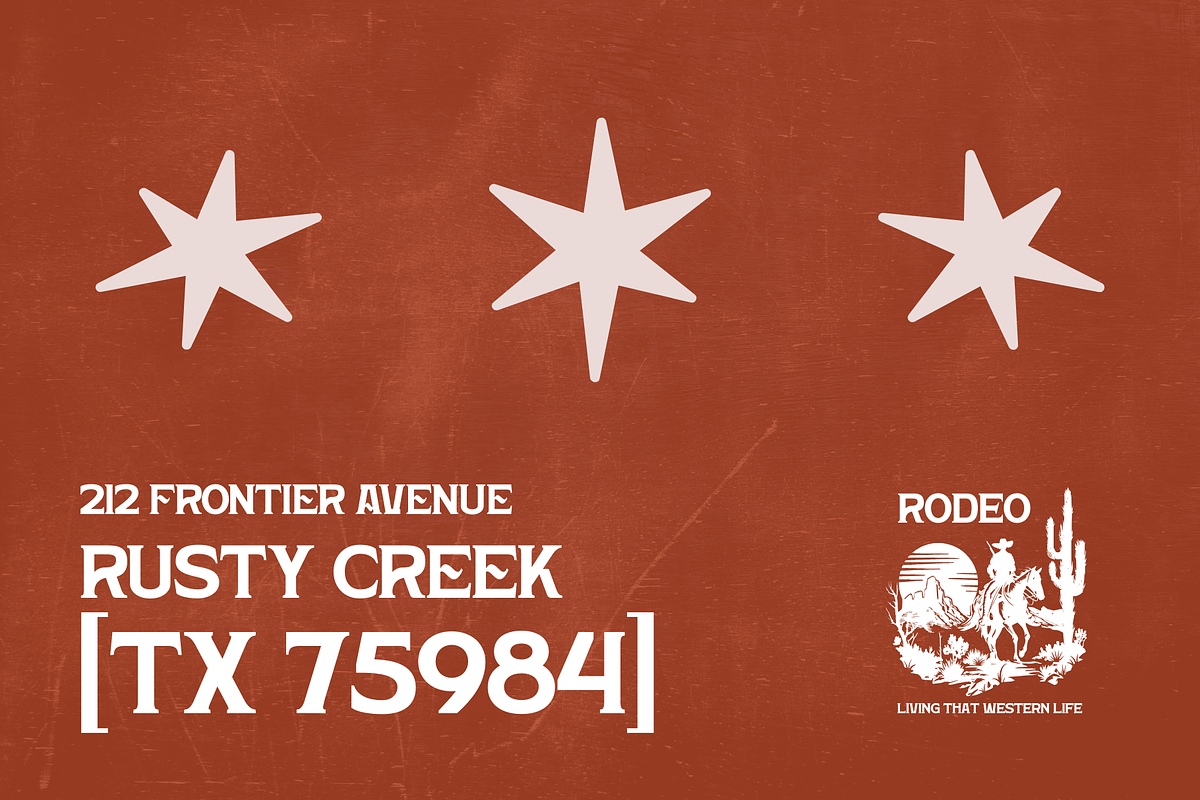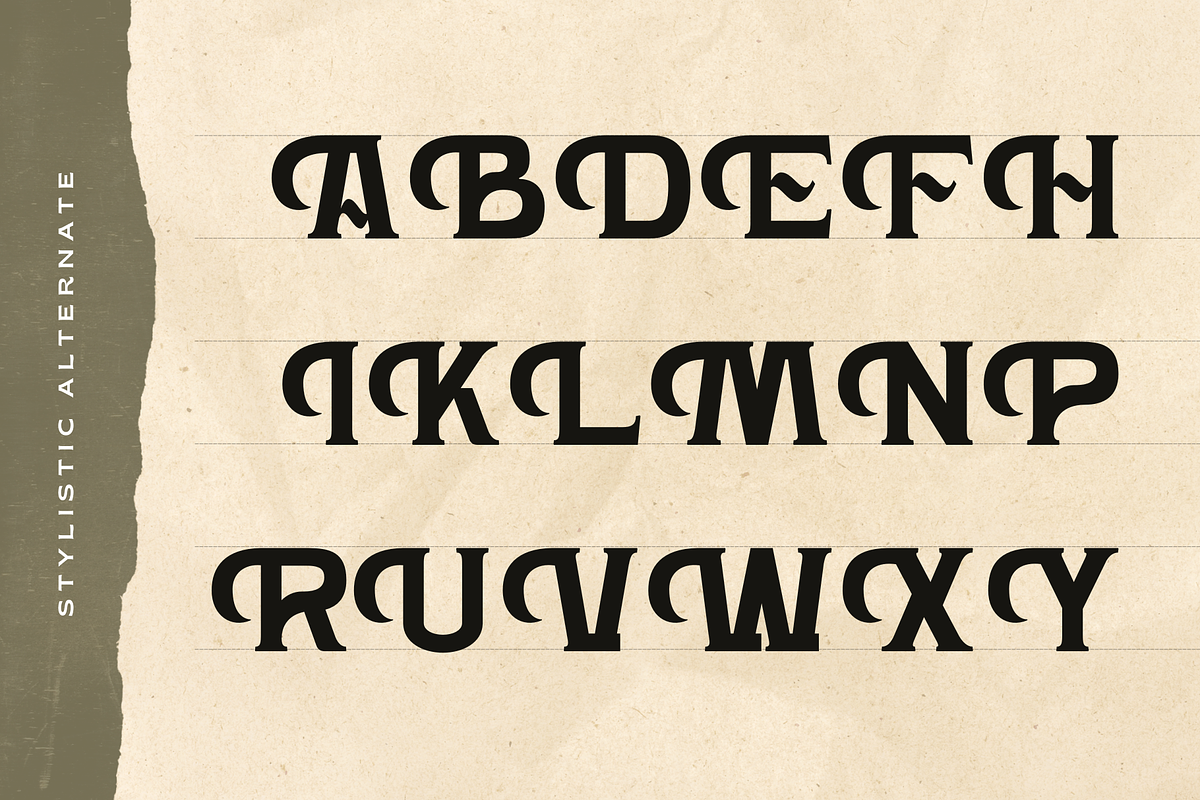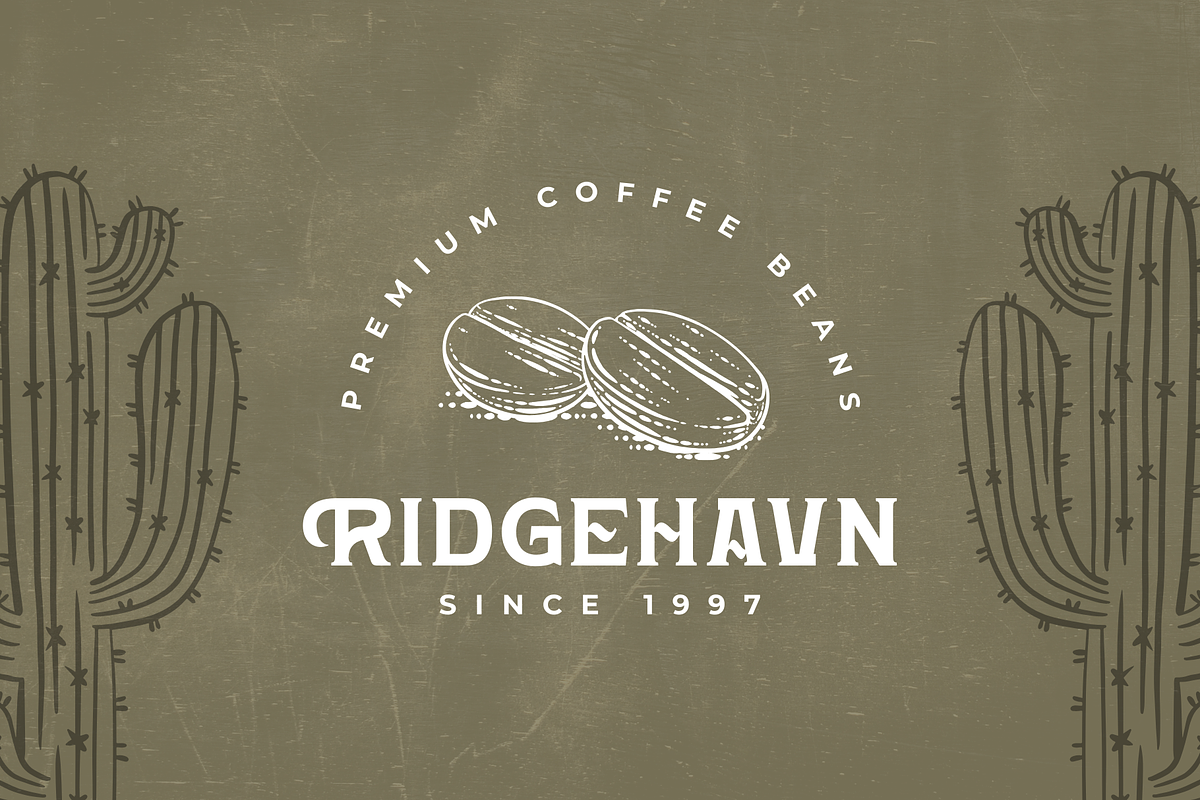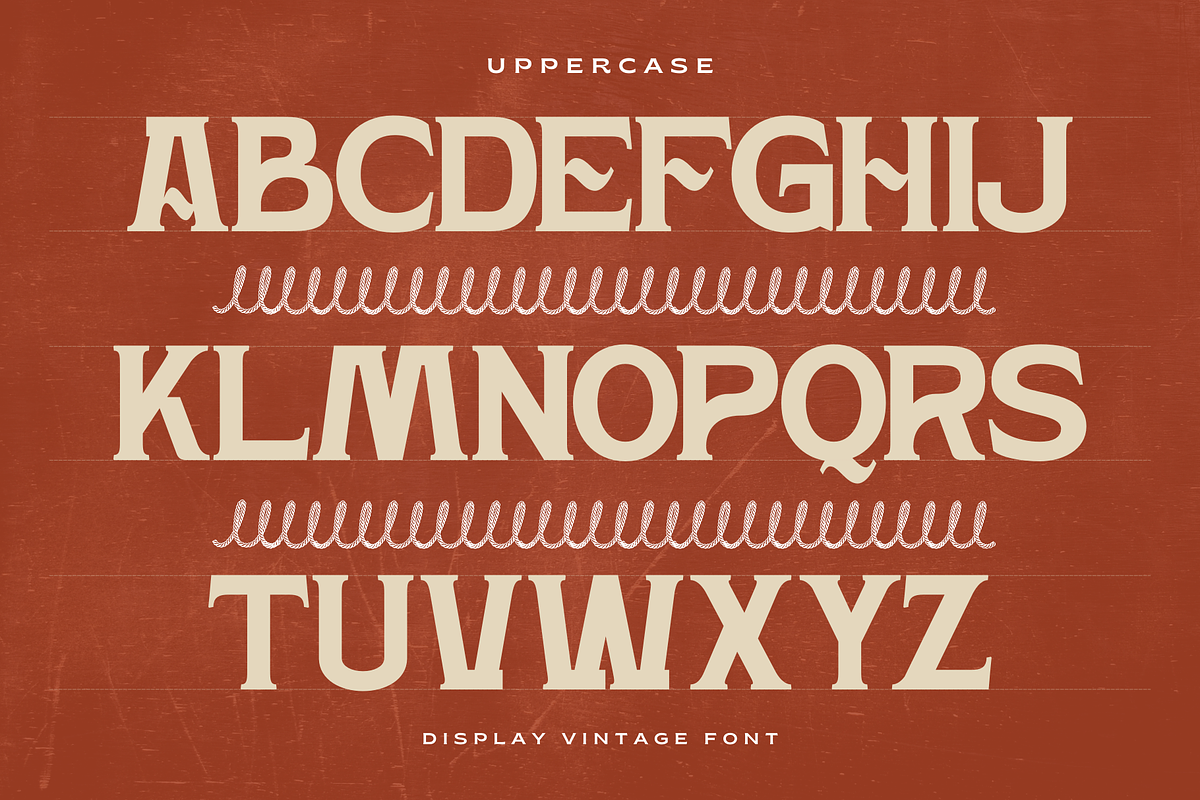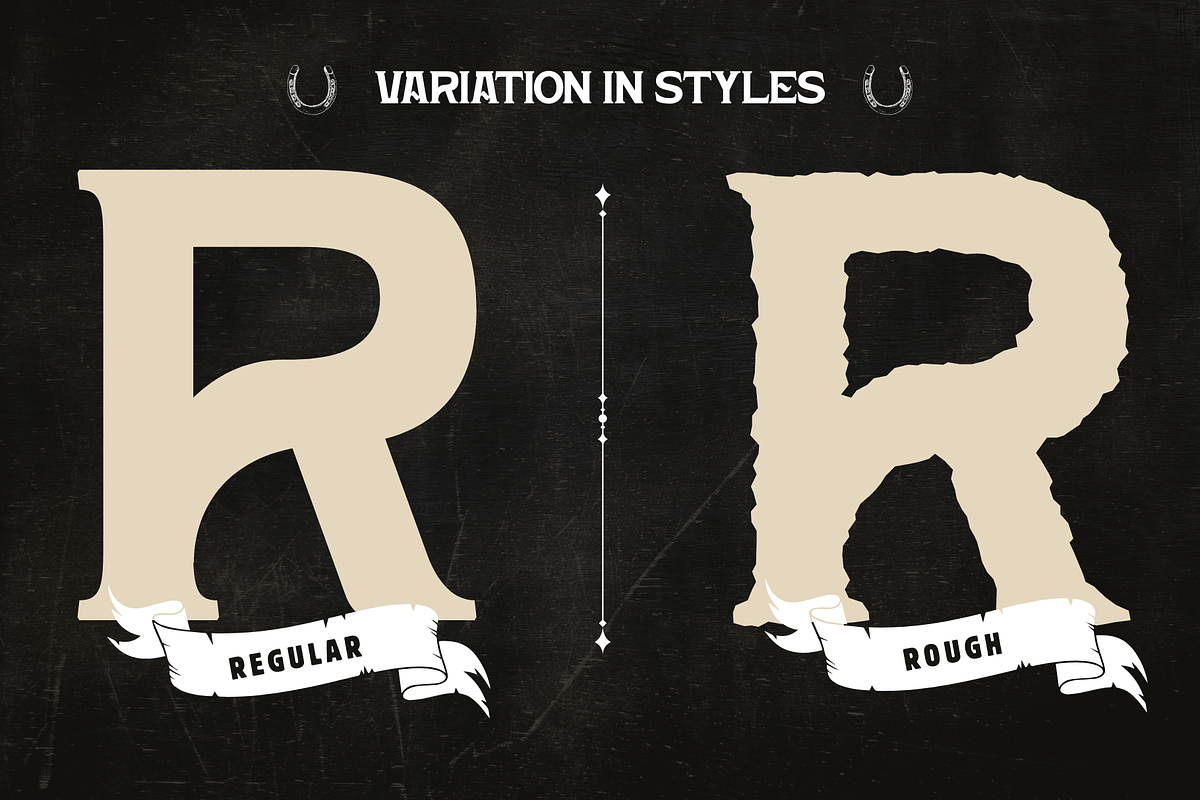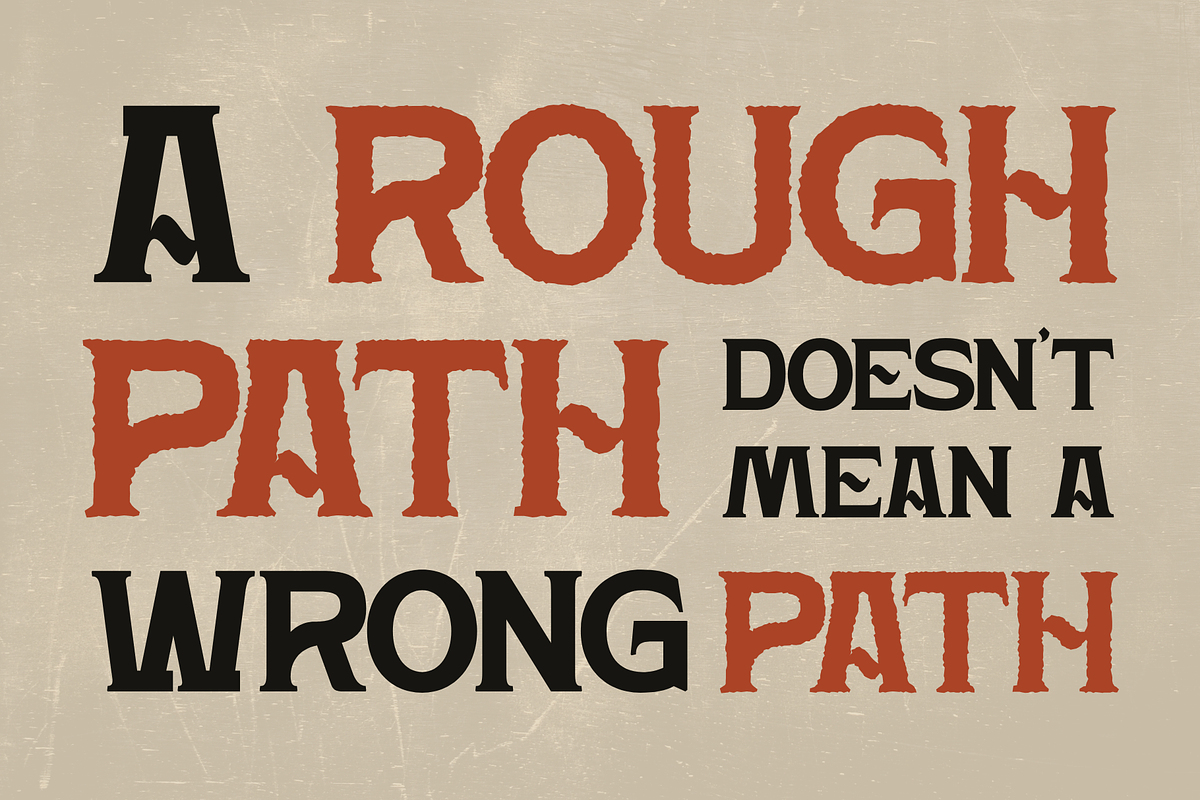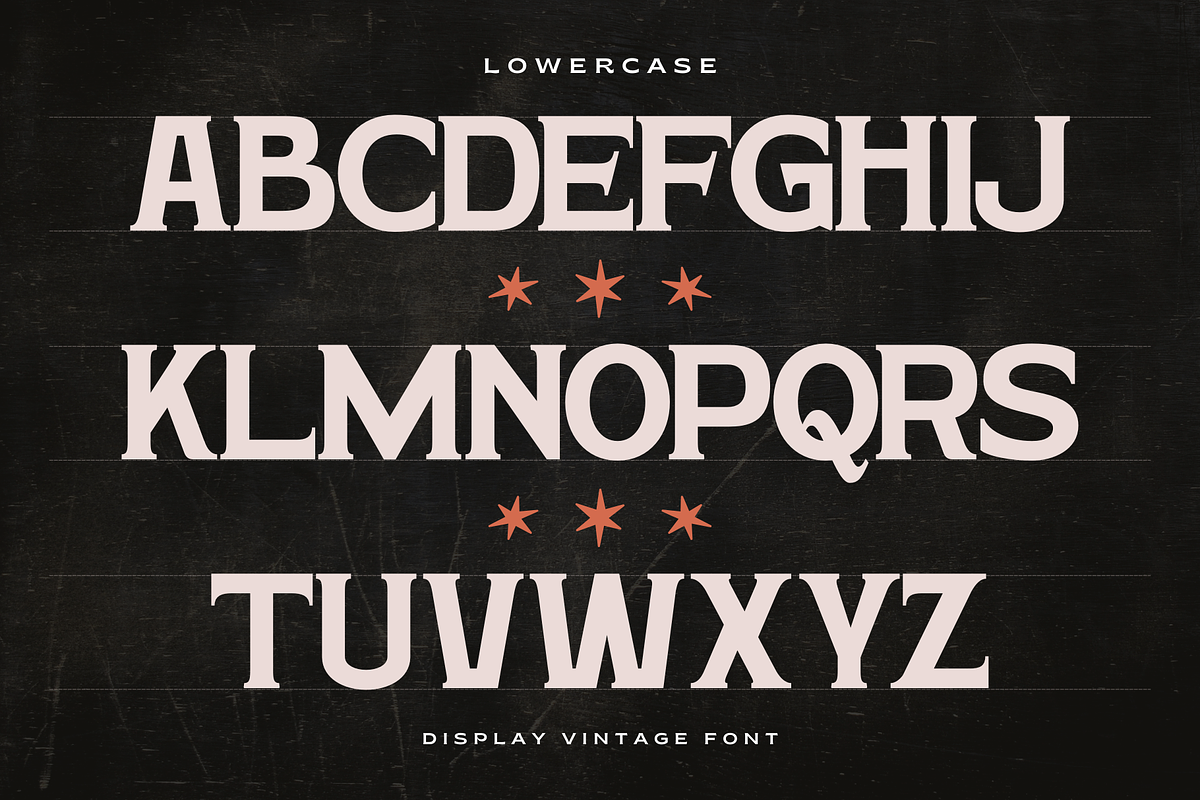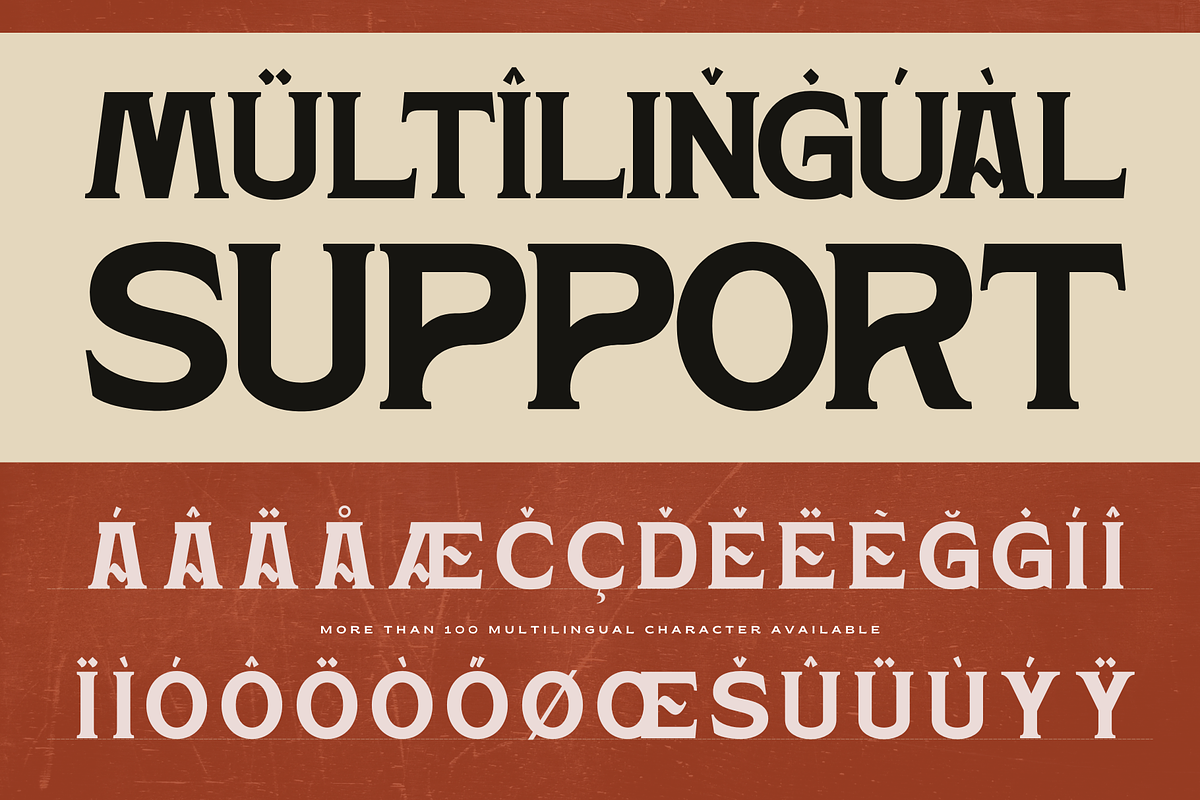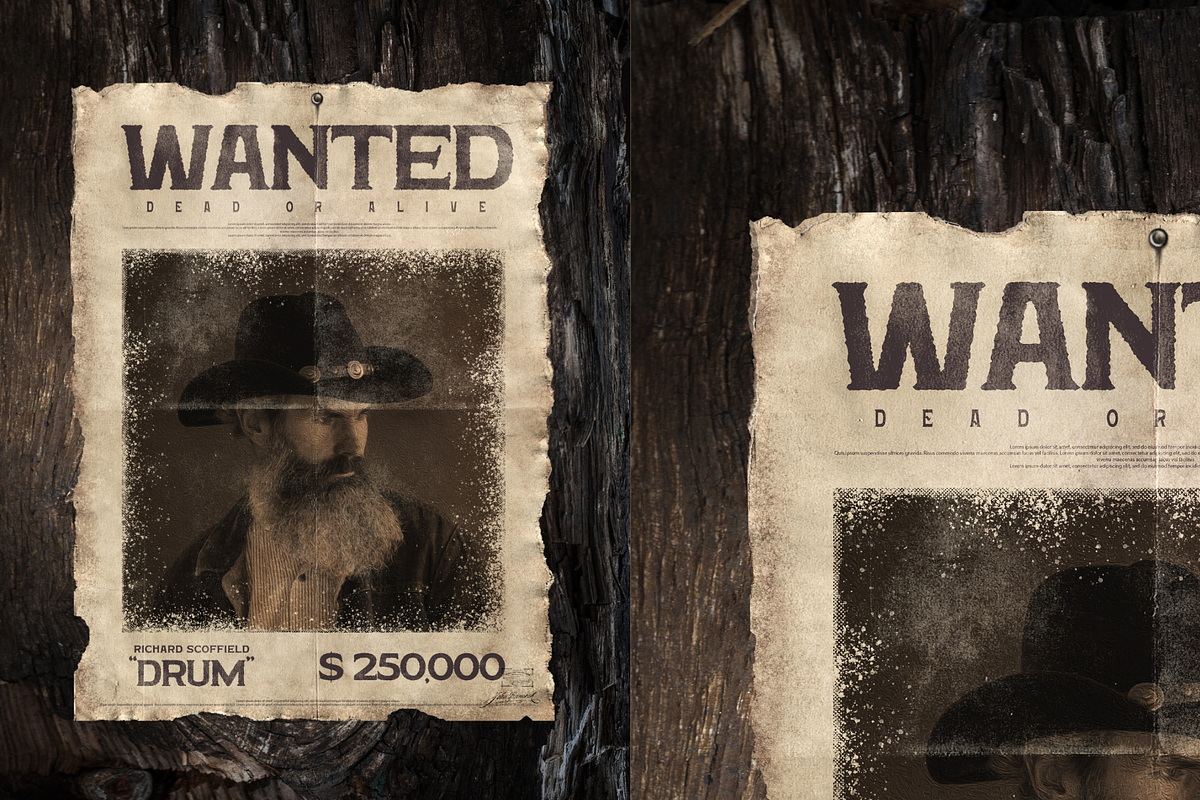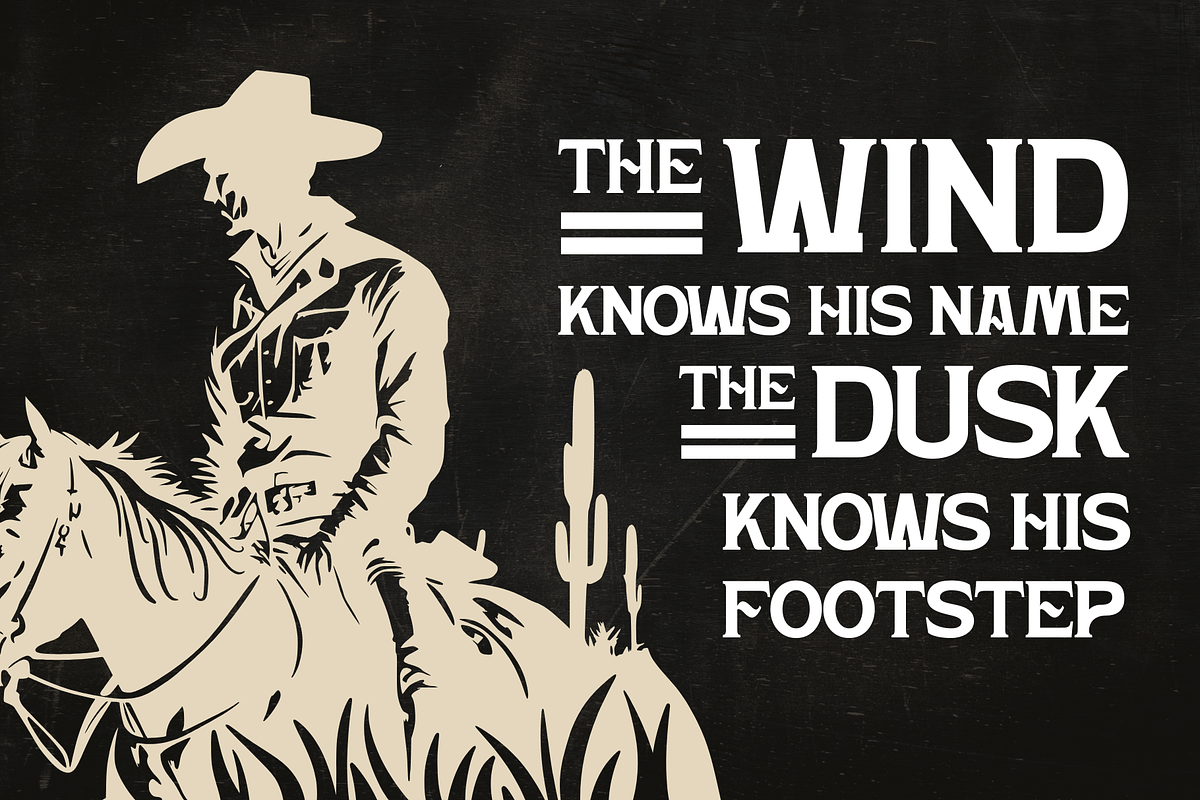
Hardan Vintage - Classic Logo Font
Hardan Vintage is a timeless classic font crafted with an authentic retro spirit. Available in Regular and Rough styles, it brings bold character and handcrafted charm to every design. Perfect for logos, branding, packaging, and label sign branding, Hardan Vintage delivers a nostalgic look with strong visual impact—ideal for projects that need heritage style and vintage authenticity.